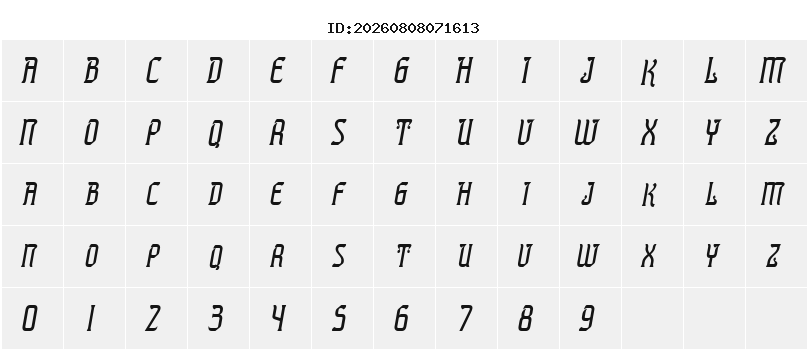
• Font Name: Presidente Tequila
• Full Font Name: Presidente Tequila Italic
Presidente Tequila.ttf is a modern, elegant sans-serif font designed for ultimate readability and visual harmony. Perfect for branding, headlines, web design, and print materials.